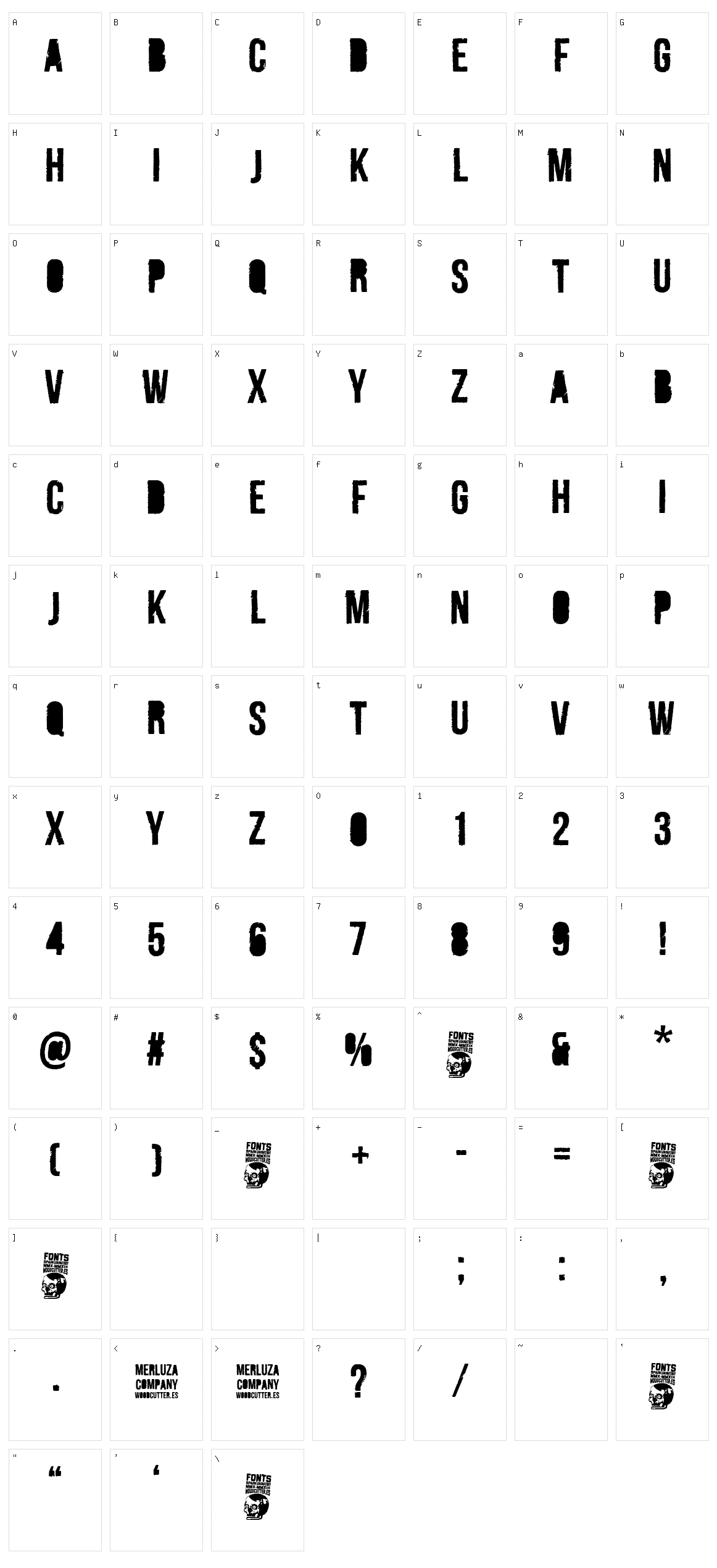
The free font Merluza Company is carefully designed by Woodcutter, showcasing a thoughtful balance of creativity and usability and falls under the Destroy font style. When you download the ZIP file, it contains only 140.01 KB of font files, making it lightweight and quick to download. Please review the license details below to understand permitted usage and distribution rights. If license information is not available, we recommend using this font for personal projects only or contacting the author directly for commercial usage permissions.